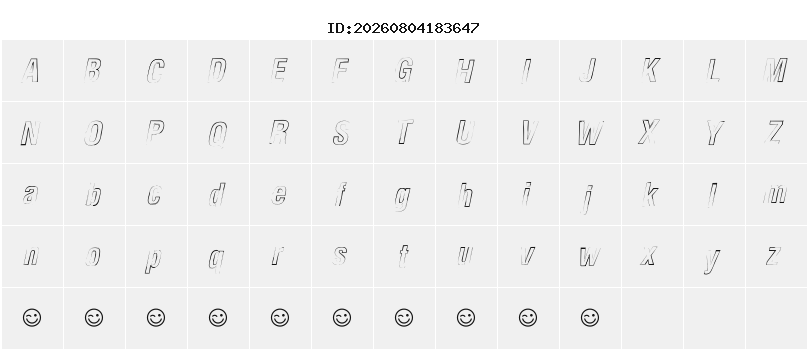
• Font Name: Newside FP Outline
• Full Font Name: Newside FP Outline Italic
• Designer: Azmi Kamarullah
About Newside FP Outline.ttf
Newside FP Outline.ttf is a modern, elegant sans-serif font designed for ultimate readability and visual harmony. Perfect for branding, headlines, web design, and print materials.